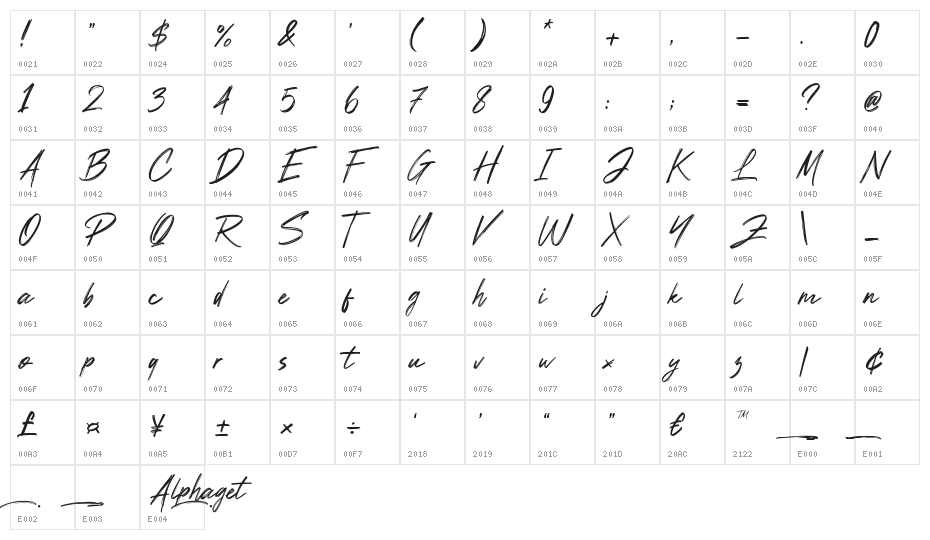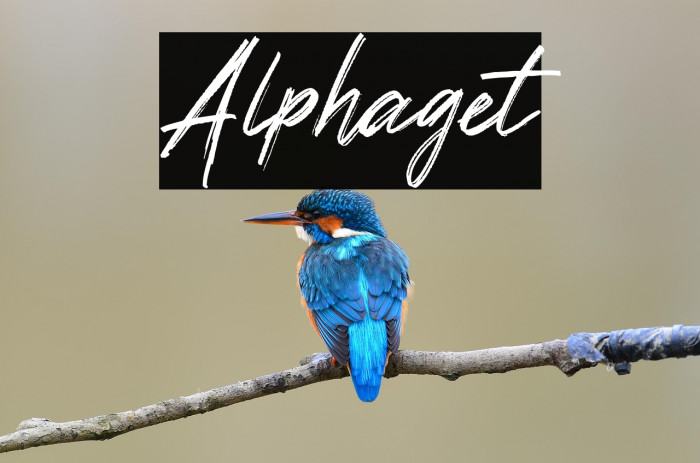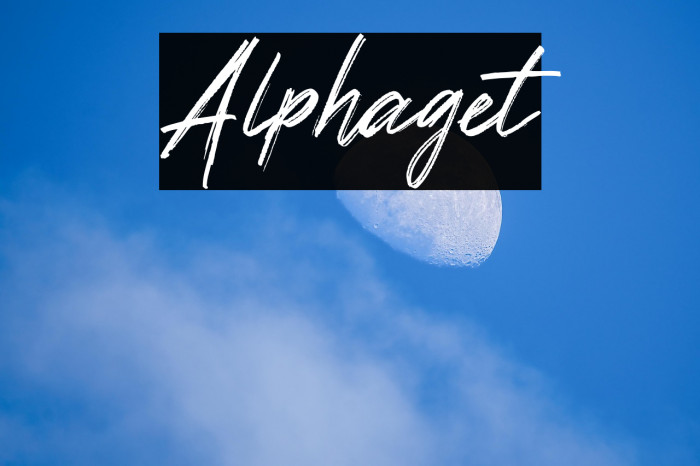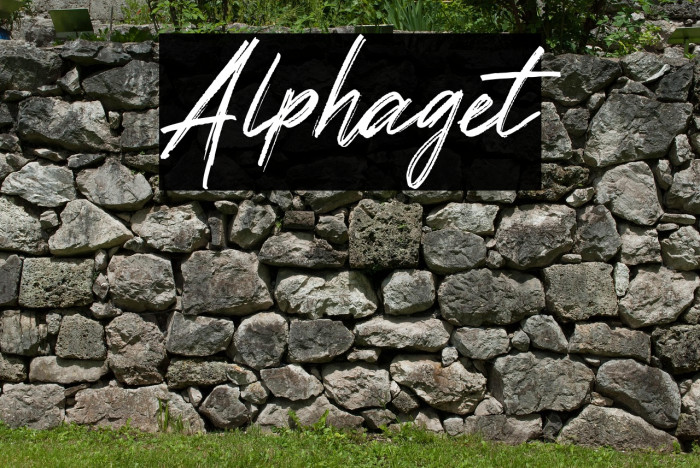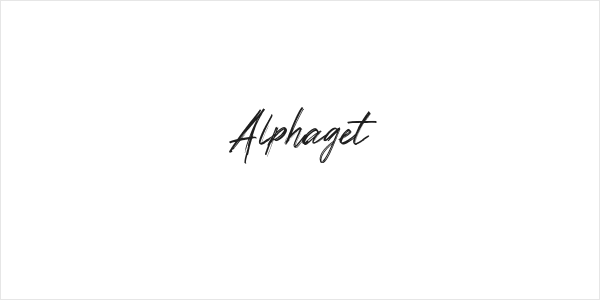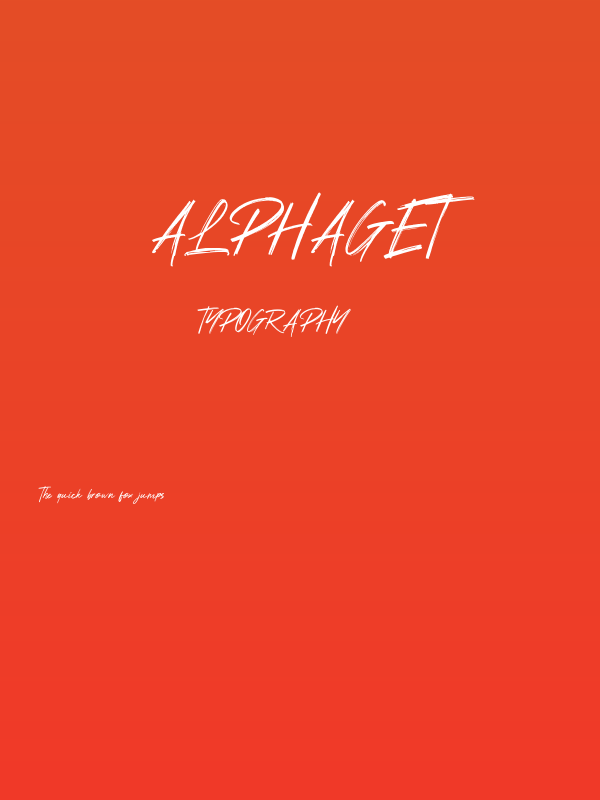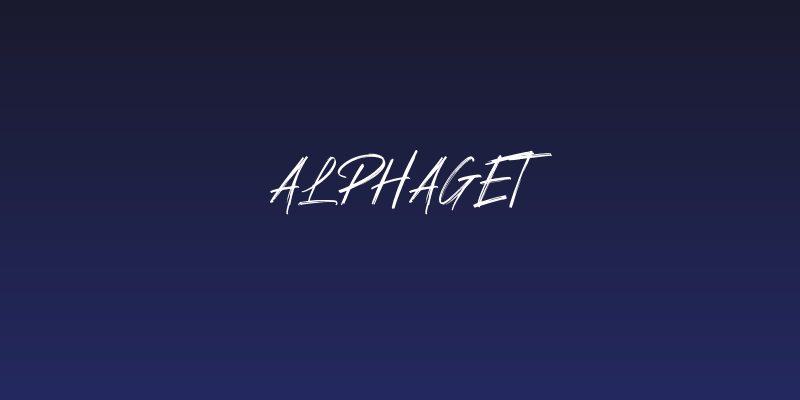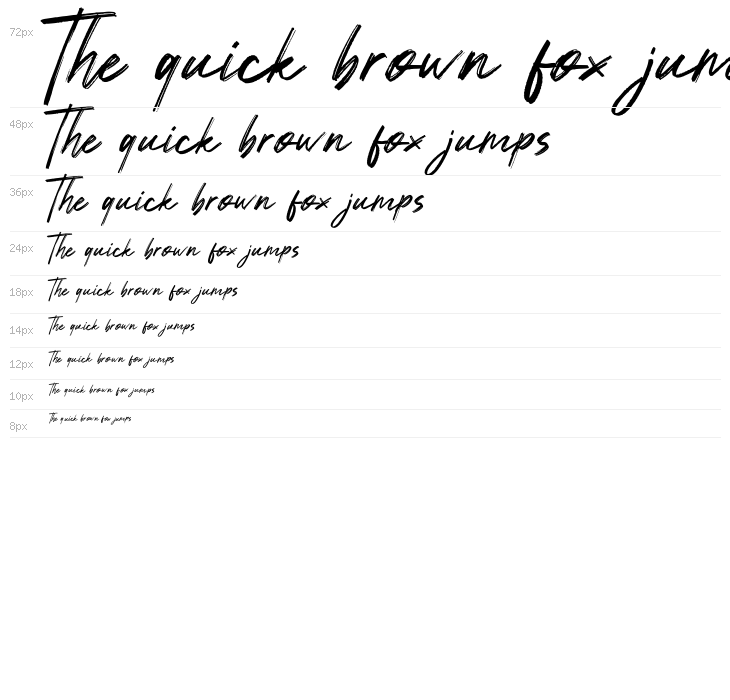
Alphaget Font
Alphaget Description
This font exudes a dynamic and energetic style, characterized by its bold, sweeping strokes and a handwritten aesthetic. The uppercase letters are particularly striking, with a slightly slanted orientation that adds a sense of movement and flair. The lowercase letters maintain this fluidity, offering a cohesive look throughout. Numbers and special characters are crafted with the same attention to detail, ensuring consistency. The overall appearance is both artistic and modern, making it suitable for projects that require a personal touch or a creative edge.
| Overall Style | Modern, Artistic |
| Use Case | Logos, Posters, Invitations |
| Proposed Projects | Ideal for creative projects such as logos, posters, and invitations where a personal and artistic touch is desired. |